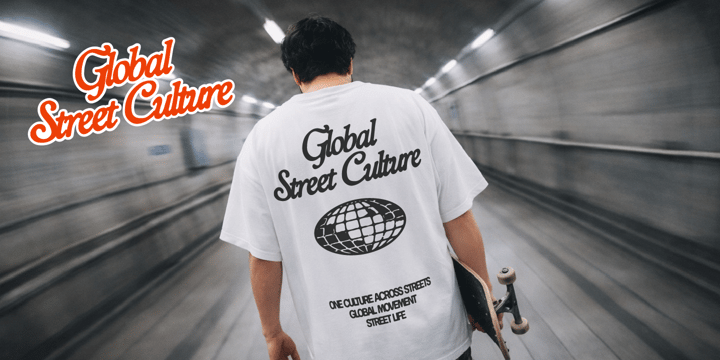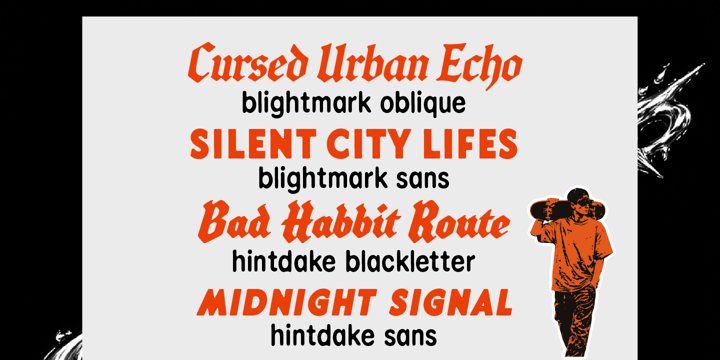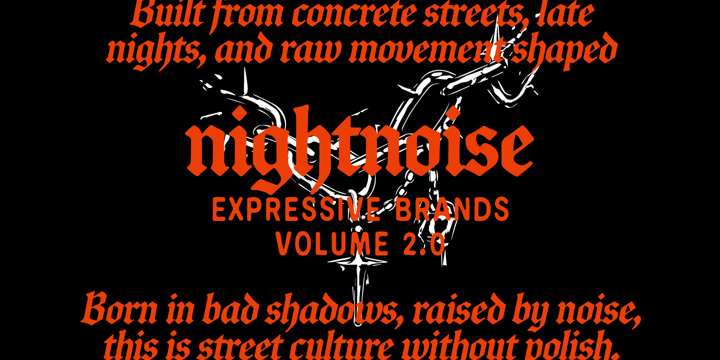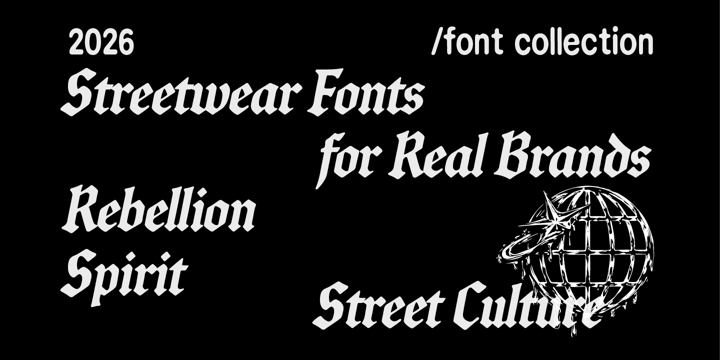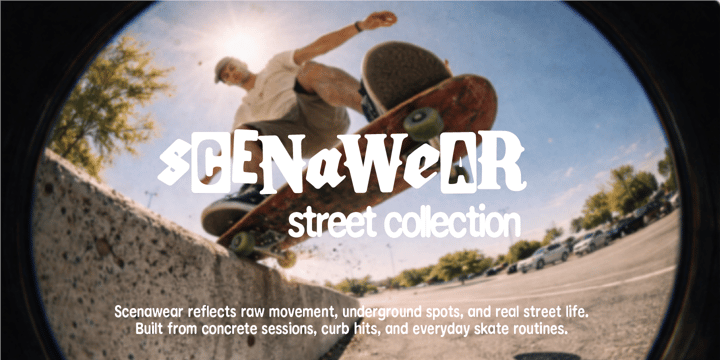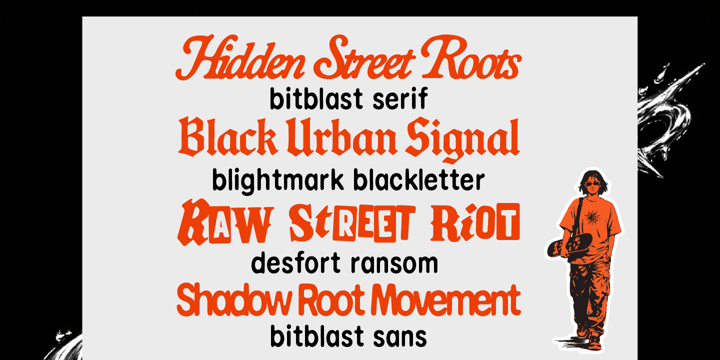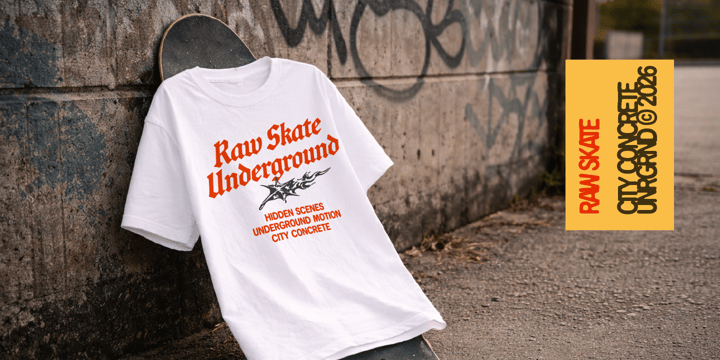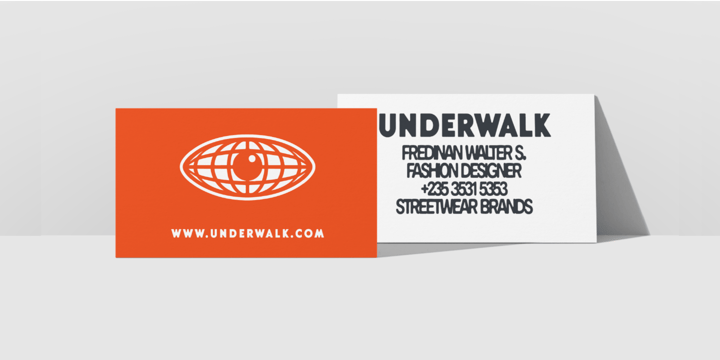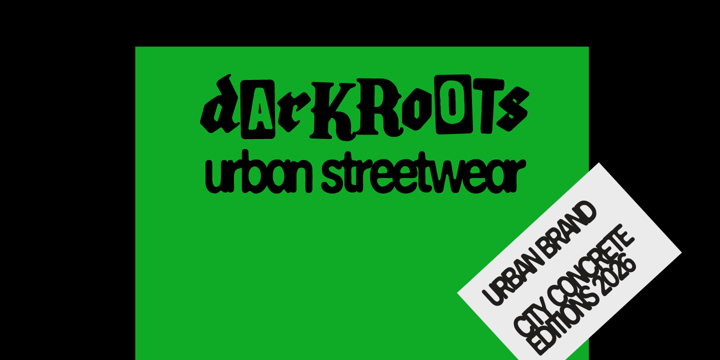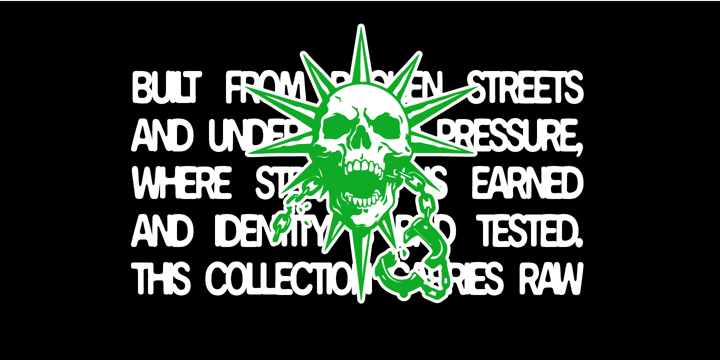
Authentic Streetwear Font Bundle
Authentic Streetwear Font Bundle is a premium, hand-curated collection of bold display typefaces built to elevate streetwear branding at a professional level. Created for visual branding designers who work within street culture, skate labels, underground apparel, music merchandise, and urban campaigns, this bundle delivers raw attitude, strong identity, and high-impact presence—without searching across multiple font families.
Carefully selected from Edignwn Type’s display library, this collection brings together blackletter aggression, ransom-style chaos, bold serifs, and contemporary sans styles that define authentic street aesthetics. Each typeface carries its own distinctive personality while working cohesively as a complete streetwear branding system—perfect for apparel graphics, lookbooks, posters, album covers, packaging, and bold visual statements.
This bundle includes 8 premium typefaces:
Blightmark Blackletter
Blightmark Oblique
Blightmark Sans
Bitblast Serif
Bitblast Sans
Desfort Ransom
Hintdake Blackletter
Hintdake Sans
Features:
8 curated display typefaces for streetwear branding
Each typeface includes Regular and Textured styles
Mix of blackletter, ransom, serif, and sans styles
Some fonts include uppercase, lowercase, alternates, ligatures, symbols, and punctuation
Some fonts include all-caps, numerals, symbols, and punctuation
Multilingual support
PUA encoded for easy access to alternates and ligatures